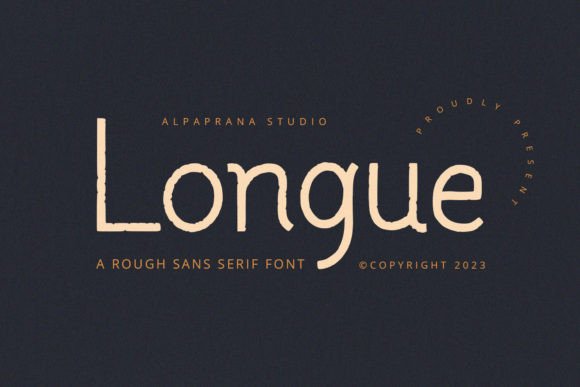
Introducing Longue Font, the ultimate font style for signature lovers. Created by alpapranastudio, this rough sans serif font exudes a natural and modern vibe that will captivate your senses. Whether you're looking to elevate your branding, design a unique logo, or create stunning lettering, Longue is here to make a statement.
With its versatility, Longue Font is perfect for a wide range of design projects. Imagine using it on clothing, posters, magazines, packaging, shopping bags, book covers, and even photography. It's a font that adds that special touch to special events and leaves a lasting impression.
Longue Font comes with a variety of features that will take your designs to the next level. With both uppercase and lowercase letters, numerals, and punctuations in OpenType Standard, you have all the tools you need to create visually stunning content. The font also supports multilingual characters, allowing you to reach a global audience effortlessly. And with ligatures and alternative style stylistic sets, you can truly customize your designs to reflect your unique style.